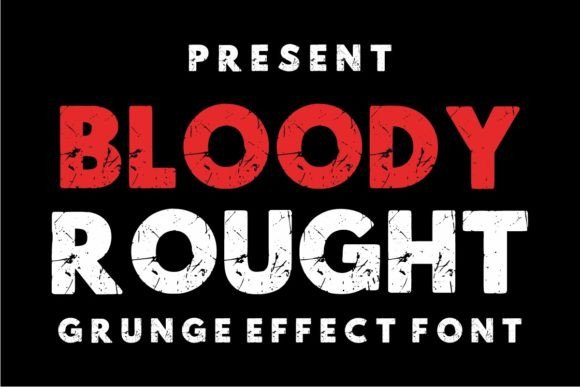
Bloody Rought: A Vintage Display Font for Bold Marketing Campaigns
As a marketing specialist or content creator, grabbing audience attention within the first two seconds of a digital scroll is non-negotiable. The typeface you choose acts as the visual gateway to your message, either inviting engagement or encouraging a swipe away. Bloody Rought is a vintage, retro, cool, grunge bold display font designed specifically for this challenge. It bridges the gap between raw street-style authenticity and polished brand communication, making it a valuable asset for anyone looking to inject strong personality into their digital assets and marketing collateral.
Elevating Blog Posts and Brand Content with Bloody Rought
For content creators and bloggers, the visual presentation of an article is just as important as the words themselves. Bloody Rought serves as an excellent tool for blog post header images, pull quotes, and featured title cards. When you use this display font for your main headline, you instantly signal to the reader that this is not generic content. Pairing Bloody Rought with a clean serif or highly readable sans serif for the body text ensures your content remains accessible while the headers drive brand personality home. Using the font sparingly—like a signature stamp on decorative elements or key statistics—builds pattern recognition over time. This strategic approach to typography strengthens brand content and makes your blog feed instantly recognizable to returning subscribers.
Using Bloody Rought for Scroll-Stopping Social Media Graphics
On platforms like Instagram, TikTok, and Pinterest, stopping the scroll is the primary objective. As a social media designer, I have found that Bloody Rought performs exceptionally well for thumbnail text and reel covers. Its bold, distressed nature gives the text a tactile, urgent quality that polished corporate fonts often lack. For a flash sale announcement on Instagram Stories or a teaser graphic for a product drop, this font creates the exact sense of urgency and authenticity that drives clicks. On Pinterest, where text overlays are crucial for discoverability, Bloody Rought ensures your pin titles are legible and carry a distinct aesthetic that stands out in a crowded feed of similar visuals. It delivers high readability in small preview formats, which is essential for click-through rates.
Building Logo and Brand Recognition with Bloody Rought
For small business marketing teams and brand managers, a logo needs to communicate ethos at a glance. Bloody Rought works brilliantly as a primary logotype or wordmark for industries like streetwear, gaming, music, vintage resale, craft brewing, and alternative lifestyle brands. Its grunge bold display nature means it can stand alone without needing heavy illustrative support. When building a cohesive brand identity kit, consistency is key. Use Bloody Rought for the main logo treatment and primary headlines, then pair it with a neutral sans serif for subtext and body copy. This contrast creates a sophisticated visual hierarchy that feels intentional rather than messy. The font’s versatility allows it to move seamlessly from digital ads to physical merchandise like planners, greeting cards, and photo album covers without losing its brand-recognizable character.
Designing High-Impact Ads and Campaigns with Bloody Rought
In paid advertising, every pixel counts. Whether you are designing a Facebook ad, a Google Display banner, or a landing page hero section, the headline font must capture intent immediately. Bloody Rought is optimized for short, punchy copy. Headlines like "NEW DROP," "SALE LIVE," or "THE DROP IS HERE" set in this font carry an immediate weight that standard web fonts cannot replicate. For promotional graphics, it bridges the gap between vintage concert poster design and modern digital marketing. If you are running a seasonal campaign—especially around events like Halloween, Black Friday, or a product launch—Bloody Rought provides the visual urgency and thematic depth needed to drive conversions. Its readability on landing pages is strong when kept to hero titles and subheadings, guiding the user's eye naturally down the page and toward the call to action.
Creating Invitations, Greeting Cards, and Planners with Bloody Rought
For content creators selling digital templates or print-ready assets, Bloody Rought adds a premium, artistic flair that justifies a higher price point. Wedding invitations, greeting cards, and daily planners benefit immensely from its vintage appeal. When used in a planner cover or a section header, it evokes a sense of crafted quality and nostalgia. It allows small business owners and designers to offer unique design assets that stand out on platforms like Etsy or Creative Market. The font’s decorative nature also makes it perfect for photo album titles, adding a personal, archival feel to family or travel albums. It turns a simple digital product into a curated experience that resonates with buyers looking for something beyond cookie-cutter design.
Font Pairing Advice for Bloody Rought in Modern Web Design
To maximize the impact of this display font, pairing it strategically is essential. Because Bloody Rought carries a bold, grunge, and loud personality, it needs a neutral partner to balance the composition. For web design and social media captions, pair Bloody Rought with a clean sans serif font like Open Sans, Montserrat, or Lato. This combination ensures that while your headlines command attention, your body text remains highly readable and accessible across all devices. For a more editorial or high-fashion feel, pair it with a classic serif font like Playfair Display or Garamond. The contrast between the rough edges of Bloody Rought and the refined lines of a traditional serif creates a dynamic tension that feels current and curated. Always remember that Bloody Rought is at its best in larger point sizes. Avoid using it for lengthy paragraphs. When designing for mobile, fine-tune the tracking (letter-spacing) so the grunge details remain crisp and do not blur into an illegible smear on smaller screens.
For marketing specialists and content creators navigating the fast-paced world of digital design, having a distinct typographic voice is no longer optional. Bloody Rought provides the visual grit and vintage charm needed to differentiate your brand content from the competition. From logos and branding kits to social media thumbnails and high-converting ad creative, this display font offers the versatility required to build a cohesive, recognizable brand identity. If you are ready to move beyond generic fonts and establish a stronger visual footprint, adding Bloody Rought to your design toolkit is a strategic move that will pay dividends in audience engagement and brand recall for years to come.